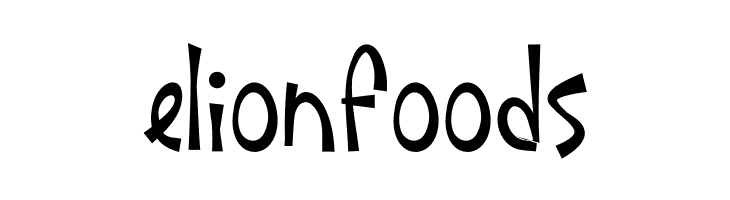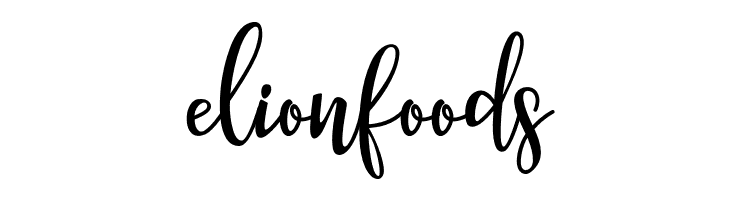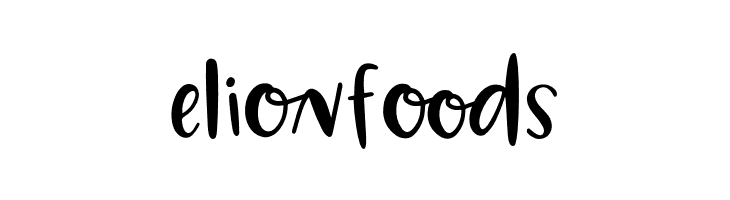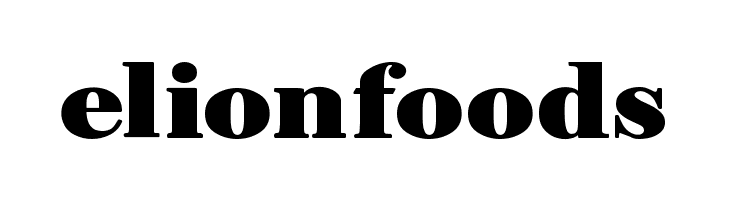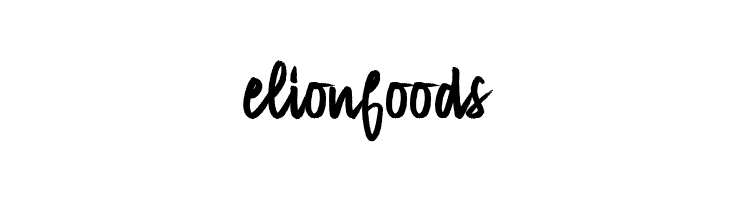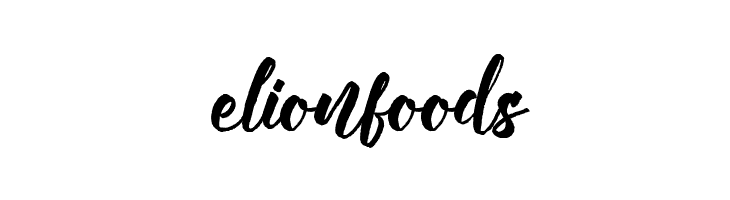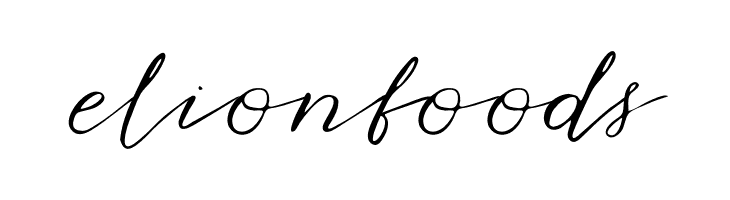
A lively, expressive handwritten font with dynamic strokes and playful bounce.
A lively, handwritten script font with bold, flowing characters.
A bold, brush-like font with dynamic strokes and artistic flair.
Ornamental dingbat font with detailed mandala and floral motifs.
Ornamental dingbat font with mandala motifs and bold sans-serif Latin letters.
A bold, distressed font with a vintage, rugged appearance.
A bold, expressive handwritten font with dynamic strokes and playful character.
A casual, handwritten-style font with irregular strokes and a personal touch.
A bold, handwritten font with a playful and informal style.
A playful, hand-drawn font with bold, irregular characters and a whimsical style.
A bold, expressive handwritten font with dynamic strokes and a playful style.
A bold, high-contrast serif font with a classic and authoritative style.
A bold, dramatic serif font with thick strokes and pronounced serifs.
A casual handwritten font with a lively and organic appearance.
A bold, elegant script font with flowing, cursive lines.
An elegant and ornate script font with flowing letterforms and decorative swashes.
A playful handwritten font with smooth curves and a casual style.
An elegant script font with flowing, calligraphic style and bold strokes.
A bold, classic serif font with strong strokes and moderate contrast.
A classic serif font with medium weight and moderate contrast, offering elegance and readability.
A modern serif font with balanced strokes and elegant serifs.
A classic serif typeface with semi-bold weight and medium contrast, ideal for formal text.
A charming and elegant handwritten cursive font with fluid letterforms.
A decorative font with intricate, leaf-like patterns creating a bold and artistic style.
A bold, geometric font with sharp edges and a modern vintage feel.
A bold, decorative font with geometric and sharp serif elements.
An elegant, flowing script font with intricate loops and swashes.
A playful, marshmallow-like font with rounded, bubbly characters.